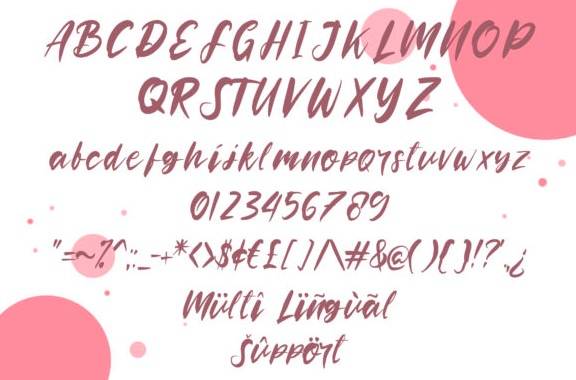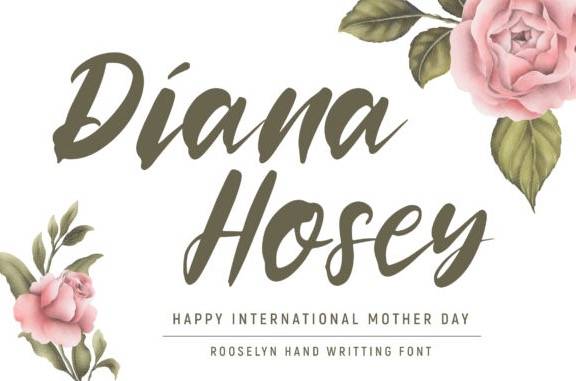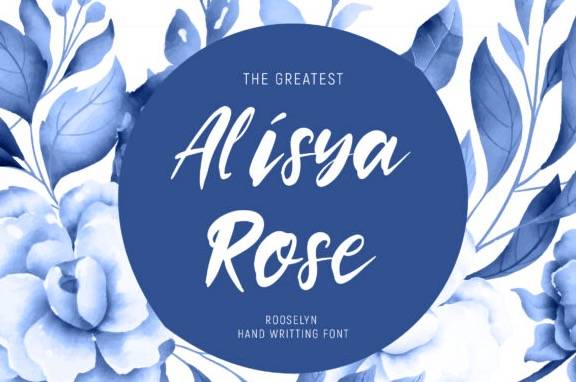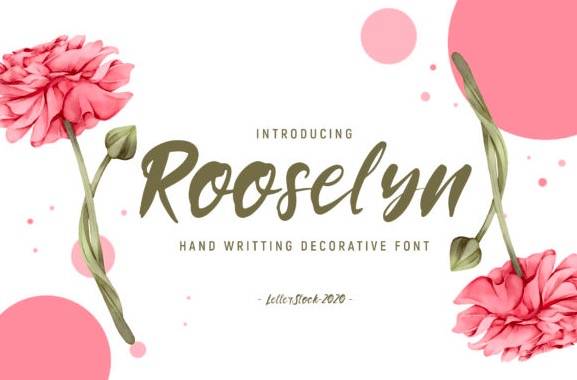
It’s time to introduce you to our newest great font Rooselyn, a handwritten font created by GumaCreative. This Brush font is saucy, sweet, and a bit shabby. A new typeface brush letter for designers.
Along with an acute similarity with decorative fonts family. This brush font is ideal for extensive designing approaches. Designers can use this brush font for various purposes such as branding, wedding designs, headings, logos, invitations, labels, signatures, etc.
Rooselyn Brush Font